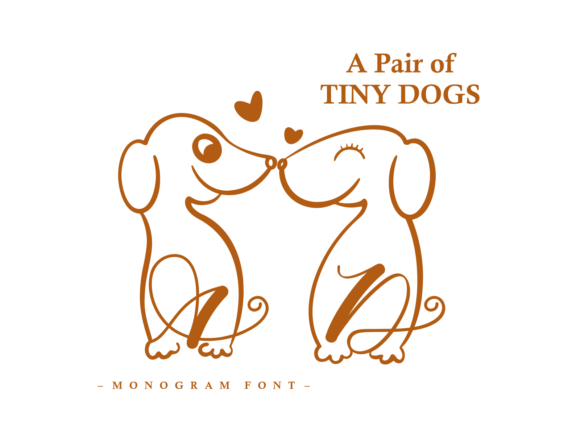
A Pair of Tiny Dogs Font: The Cutest Addition to Your Design Library
Who hasn’t been captivated by the irresistible charm of a pair of tiny dogs? Whether it’s a playful illustration or a sweet photo, these adorable canines have a way of melting hearts. As a designer, I often find myself brainstorming creative ideas when I stumble upon a font that perfectly captures the essence of my vision. A Pair of Tiny Dogs Font is one such treasure that will leave you beaming with joy.
This charming font is designed to bring a smile to your face and add a touch of whimsy to your designs. Whether you’re working on a children’s book, a pet-themed project, or a school design, A Pair of Tiny Dogs Font is the perfect companion to help you create something truly special. As a designer, you’ll appreciate the versatility and cuteness of this font, making it a valuable addition to your library.
A Pair of Tiny Dogs Font Key Features
- Size: The font comes in a single weight, with a total of 256 glyphs, including uppercase and lowercase letters, numbers, and punctuation marks.
- Unique Characteristics: The font features a playful, whimsical design, with two tiny dogs depicted in each character, adding a touch of humor and personality to text.
A Pair of Tiny Dogs Font Review
A Pair of Tiny Dogs Font is a charming font that’s perfect for adding a touch of whimsy to your designs. Here are some things that work well: ✨
- Unique and playful design: The font features adorable illustrations of two tiny dogs that add a fun and quirky touch to any project.
- Good legibility: Despite the whimsical design, the font is still easy to read and understand, making it suitable for a wide range of applications.
- Customization options: The font comes with various styles and weights, allowing you to customize it to fit your specific needs.
- Limited font sizes: The font is best used for smaller text sizes, as it can become difficult to read at larger sizes.
- Not suitable for formal projects: The playful design may not be suitable for formal or professional projects, as it can come across as too casual.
Overall, A Pair of Tiny Dogs Font is a delightful addition to any designer’s toolkit. While it has some limitations, it’s perfect for adding a touch of personality to your designs. Just be mindful of the font sizes and project type when using it.
For optimal results, use A Pair of Tiny Dogs Font in designs that require a playful and whimsical touch, such as:
- Children’s party invitations
- Wedding stationery
- Product packaging
- Blog posts and social media graphics
Remember to experiment with different font sizes, colors, and combinations to achieve the desired effect.